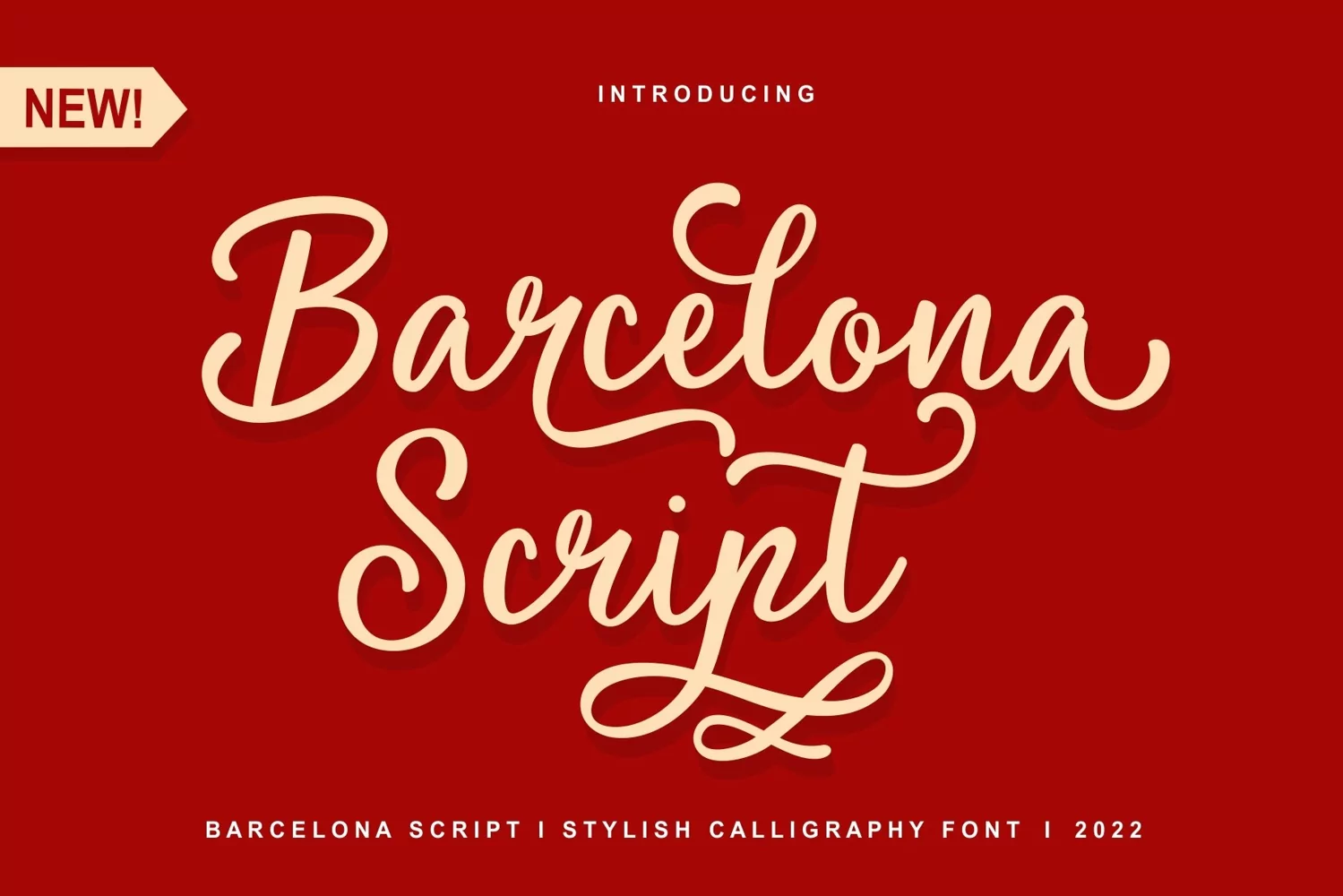
Barcelona Script Font is a Elegant Calligraphy script that is suitable for branding, christmas, wedding invitations, and other romantic projects.
- numeric & Multilingual support
- Swash
- Ss01- Ss02